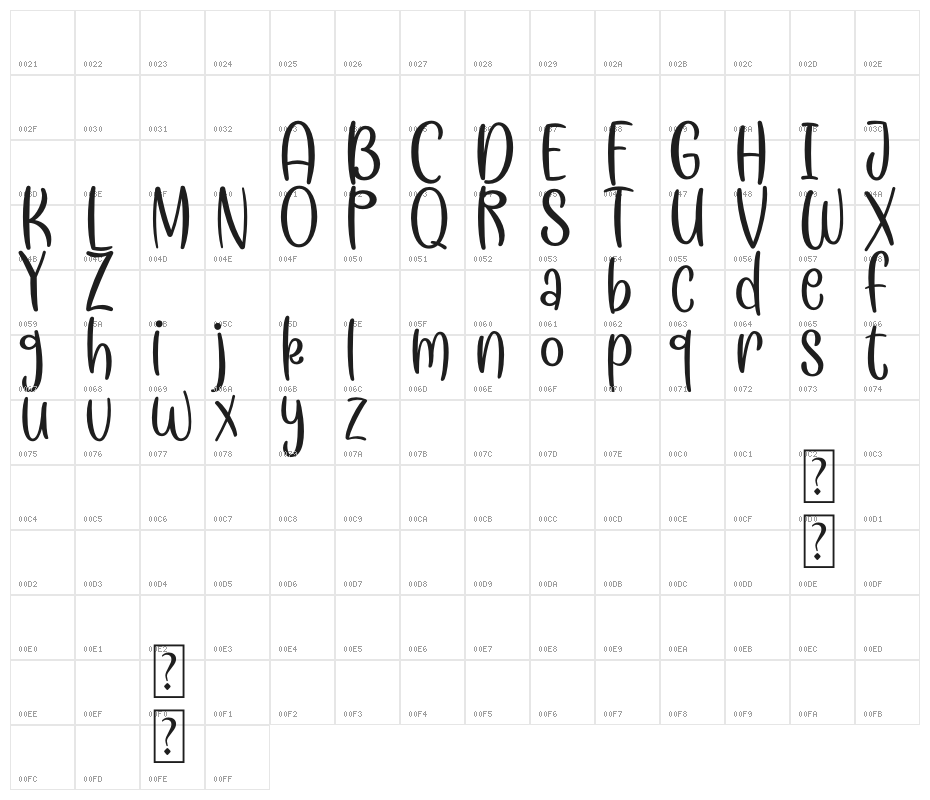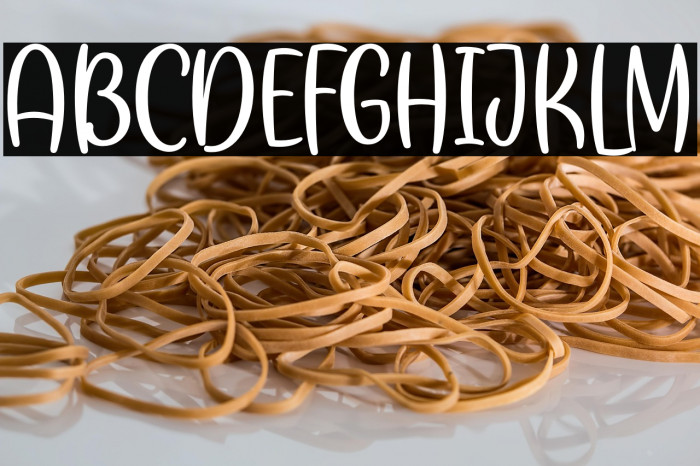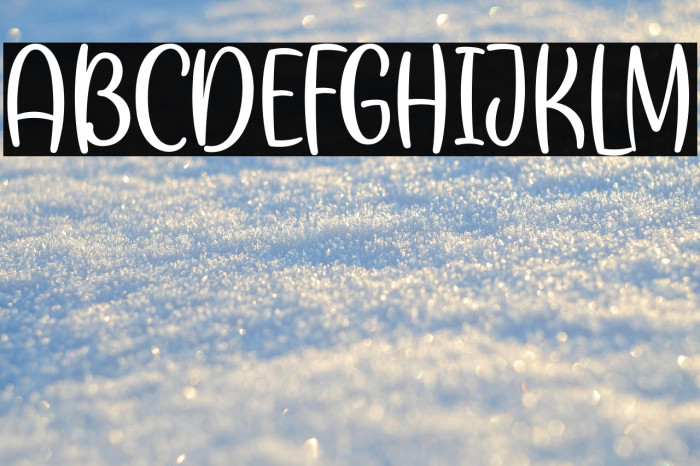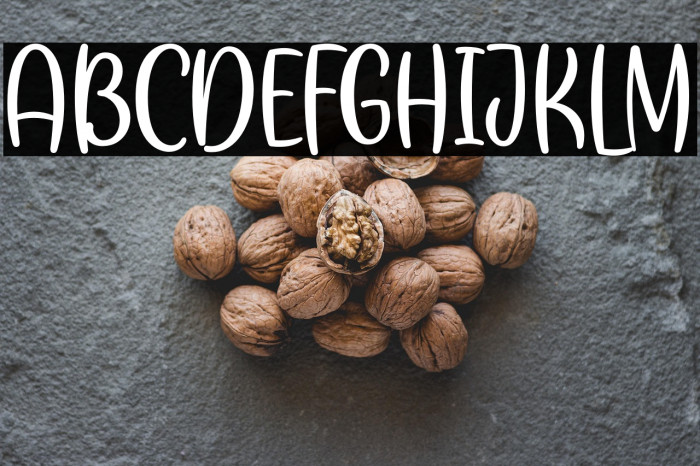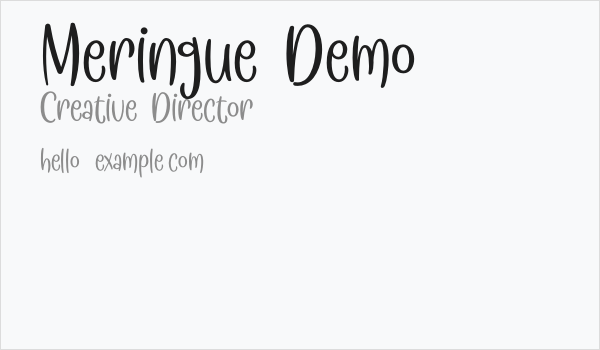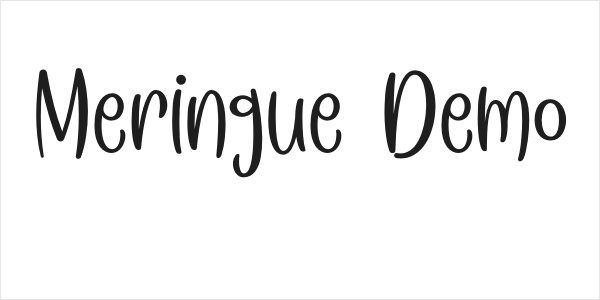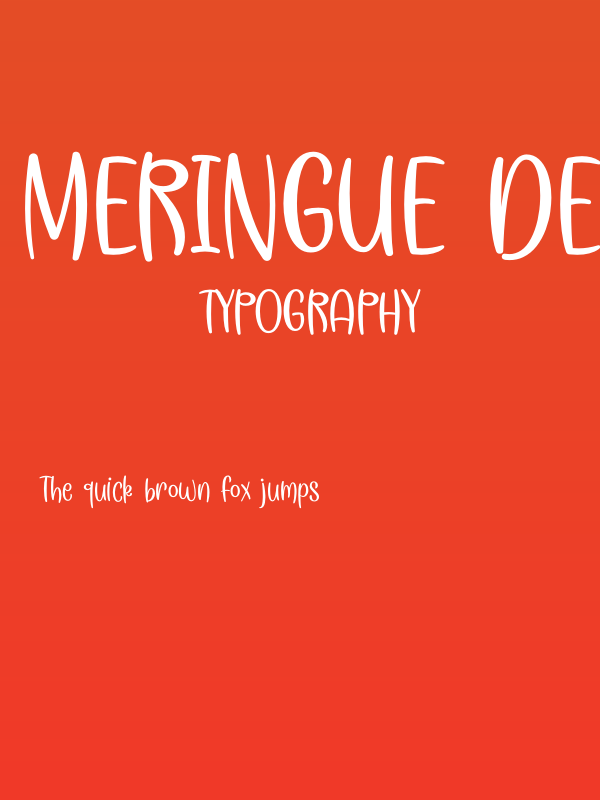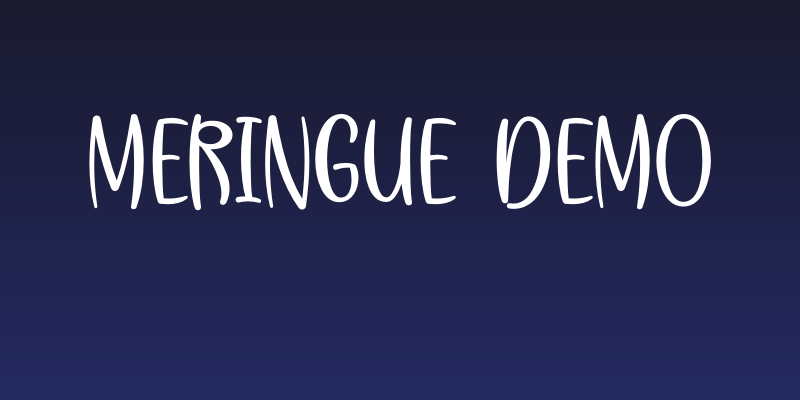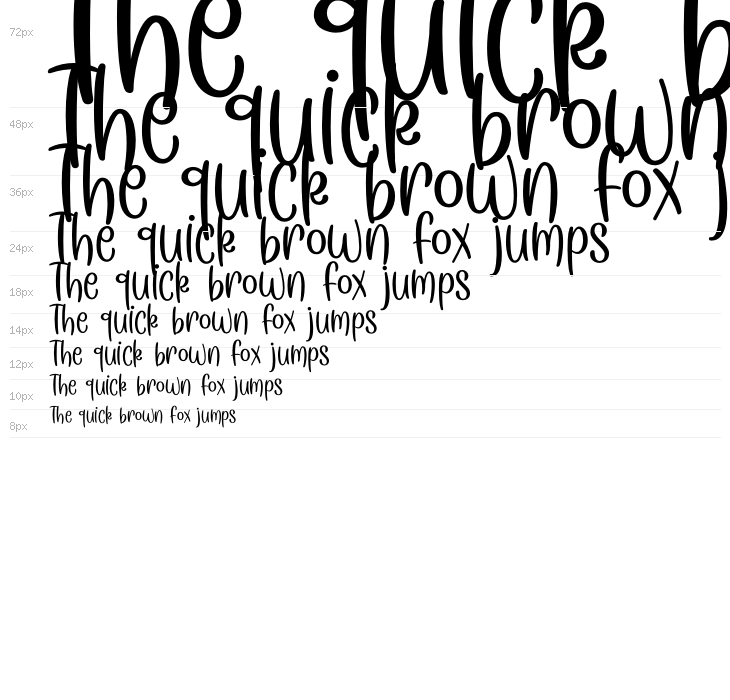
Meringue Demo Font
Meringue Demo Description
A playful, handwritten font with a whimsical and casual style, featuring rounded edges and varying stroke widths.
| Overall Style | Casual, Whimsical |
| Use Case | Logos, Invitations, Posters |
| Proposed Projects | Greeting cards, children's books, casual branding. |